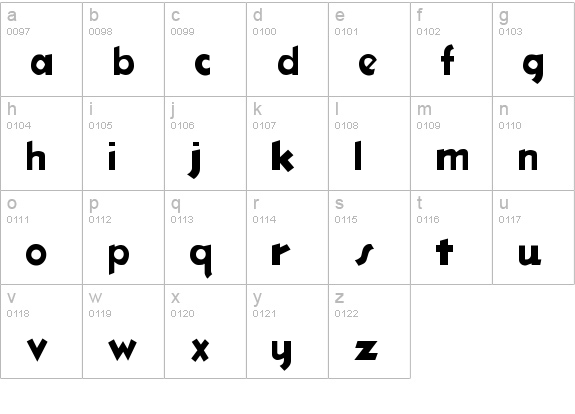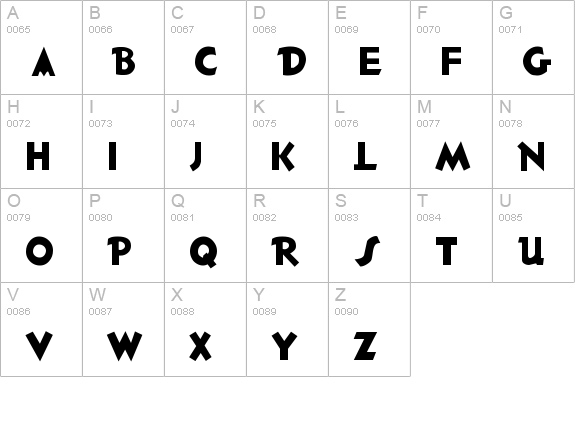
Hotshot Regular is the standard, neutral variant in the Hotshot typeface family \xE2\x80\x94 well suited to general body text, paragraphs, and standard typographic work.
Hotshot Regular font is a modern and stylish typeface that exudes confidence and charm. Its sleek lines and bold curves make it perfect for a wide range of design projects, from logos to branding to headlines. The clean and legible design ensures that your message will always stand out. What's even better is that Hotshot Regular font is available for free download at FontsMarket.com. This means you can easily access this versatile font and use it in your projects without any cost. Don't miss out on the opportunity to enhance your designs with the striking Hotshot Regular font today!